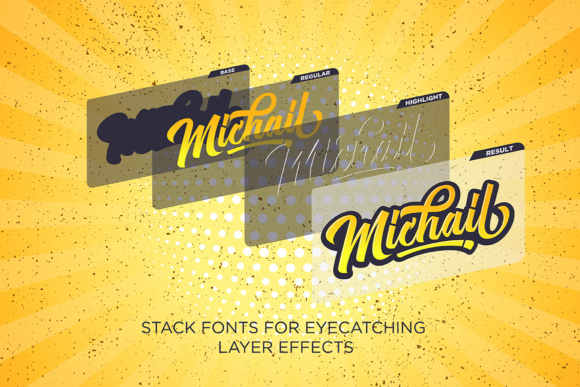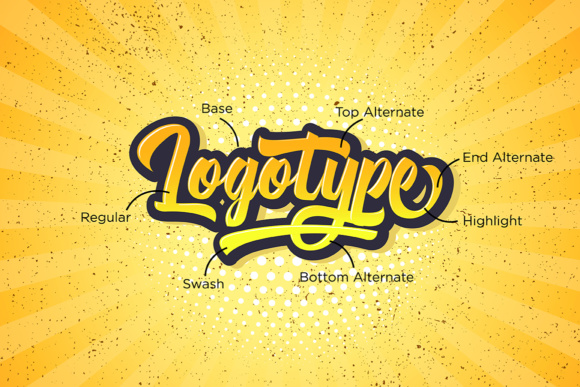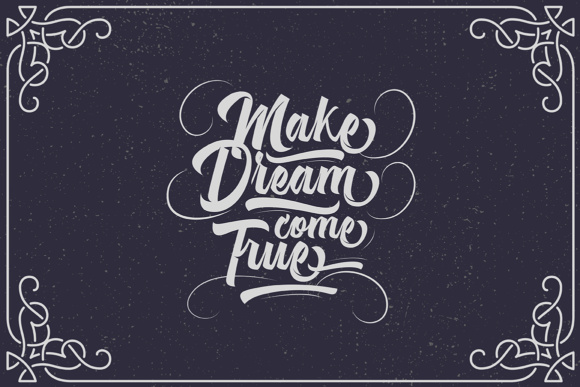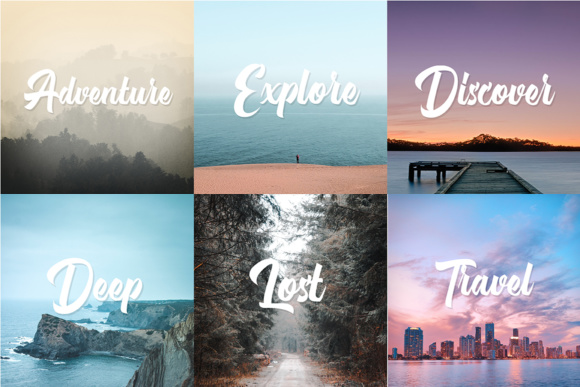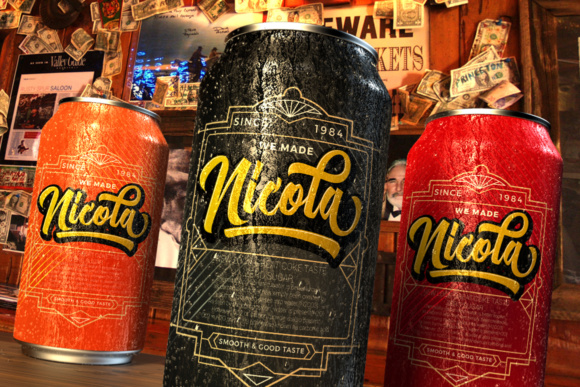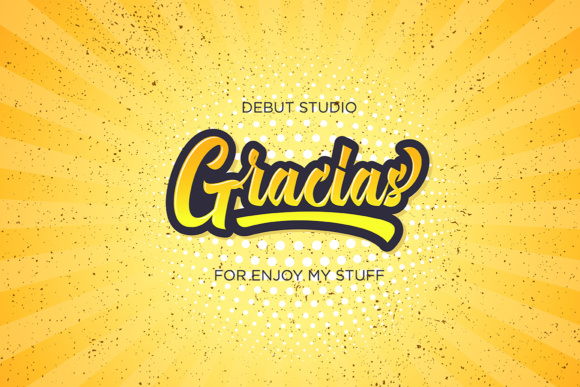
Michail Script Font
About Michail Script Font
The Michail is a striking family of six. The fonts are layered so it can generate interesting designs.
It is suitable for young, passionate designs such as: logos, t-shirts, branding, and various other design purposes.